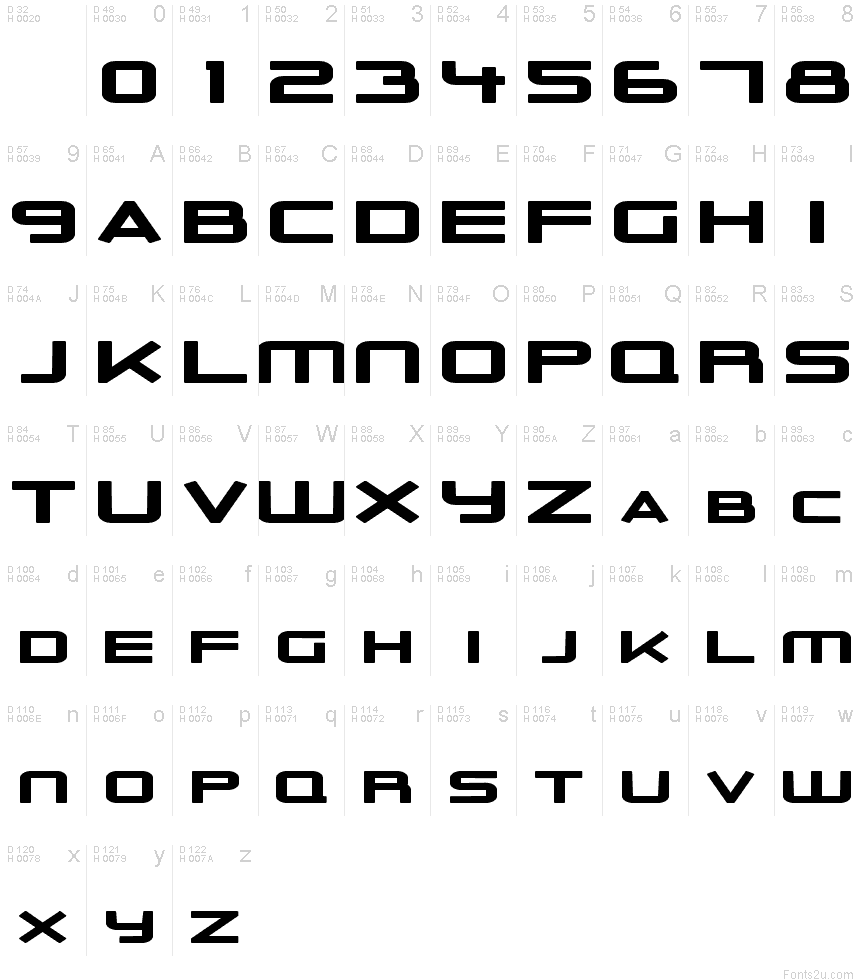
Outer Limits Solid Extended
Outer Limits Solid Extended, designed by ShyWedge in 1999, is a free extended display font with a wide, squared silhouette and rounded corners. The letters stretch across a line as one continuous band of blocky forms, keeping the overall shape steady from word to word.
It suits science-fiction titles, game menus, tech branding, and poster headers, especially when a layout needs a long horizontal line with a futuristic edge. The extended proportions also fit logo marks and short banner copy that need a strong anchor.